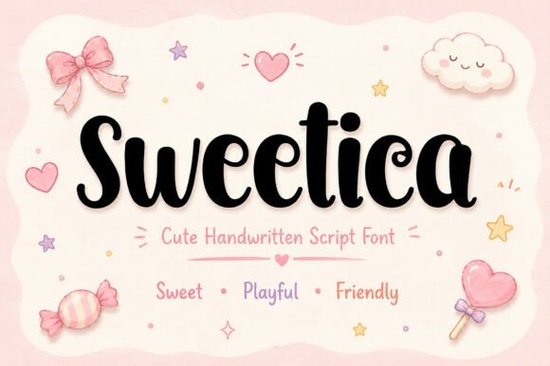
If you're looking for a font that adds a touch of sweetness and playfulness to your designs, Sweetica Font is a great choice. This cute and playful handwritten script font is perfect for adding warmth and charm to a variety of creative projects.
Why Choose Sweetica Font?
Sweetica is designed with soft curves and a smooth flow, making it ideal for projects that need a friendly and authentic feel. Whether you're working on product packaging, greeting cards, or social media content, this font brings a lovely handmade touch that feels both cheerful and genuine.
Perfect for a Variety of Projects
Sweetica is incredibly versatile and can be used in a wide range of creative endeavors. Here are some of the best uses for this charming font:
- Product Packaging: Add a sweet and inviting look to your product labels and packaging.
- Kids Branding: Perfect for creating fun and engaging designs for children's products and brands.
- Greeting Cards: Make your greeting cards stand out with a warm and personal touch.
- Birthday Invitations: Create memorable and joyful invitations for birthday celebrations.
- Nursery Wall Art: Design adorable and charming wall art for nurseries and kids' rooms.
- Social Media Templates: Enhance your social media posts with a playful and friendly font.
- T-shirt Designs: Add a unique and appealing element to your T-shirt designs.
- Mug Designs: Create mugs that are both functional and visually delightful.
- Notebook Covers: Design notebook covers that are both practical and stylish.
- Stickers: Make stickers that are fun and eye-catching.
Font Features and Compatibility
Sweetica comes with a range of features that make it easy to use and highly functional:
- Uppercase & Lowercase: Use both uppercase and lowercase letters for versatility in your designs.
- Numbers & Punctuation: Includes a full set of numbers and punctuation marks for complete text formatting.
- Ligatures: Special character combinations for a more natural and flowing look.
- Alternates: Alternate characters to add variety and uniqueness to your text.
Incorporating Sweetica into your designs is simple and can greatly enhance the overall look and feel of your projects. Here are some tips to get you started:
- Choose the Right Colors: Select colors that complement the playful and friendly nature of the font. Soft pastels or bright, cheerful hues work well.
- Combine with Other Fonts: Pair Sweetica with a clean, sans-serif font to create a balanced and harmonious design. For example, you might consider using Sallintine or Van Marigella for a nice contrast.
- Use Ligatures and Alternates: Experiment with the ligatures and alternate characters to add a unique and personalized touch to your text.
- Test Different Sizes and Spacing: Play around with the size and spacing of the text to find the perfect fit for your project. This can help you achieve a more polished and professional look.
Whether you're a designer, crafter, or small business owner, Sweetica is a wonderful addition to your font collection. It brings a sweet, playful, and creative touch to your projects, making them stand out and feel truly special.